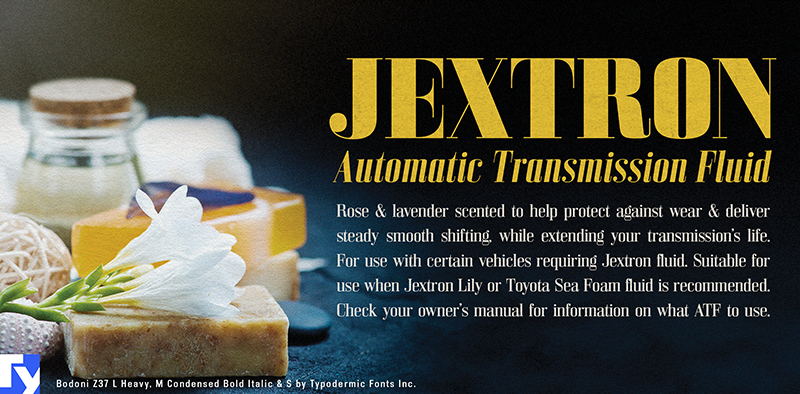
Bodoni Z37
Bodoni Z37 is a contemporary interpretation of Giambattista Bodoni’s geometric elegance. Drawn with careful attention to proportion and rhythm, it preserves the dramatic contrast and refined structure that define the classic style while adapting it for modern typography. Flat-sided curves subtly emphasize Bodoni’s geometric spirit, keeping the forms crisp on today’s high-resolution screens without losing their warmth. The result is a design that balances drama with discipline, equally at home in fashion editorials, art books, luxury packaging, and other projects where clarity and sophistication go hand in hand. These fonts include a license that allows free commercial use: sometimes referred to as a desktop license. This allows you to install the fonts on a computer and use them to create posters, web graphics, game graphics, t-shirts, videos, signs, logos and more. Read the license agreement for details. If you'd like to embed this font in an app, on the web or anything that's not covered by the desktop license agreement, visit the link below. You'll find distributors who offer different types of licenses, or you can contact me for help. https://typodermicfonts.com/bodoni-z37/ These free fonts are part of a larger font family. Check out the rest of the family through the link above.